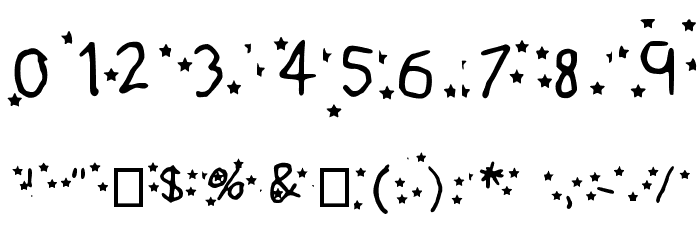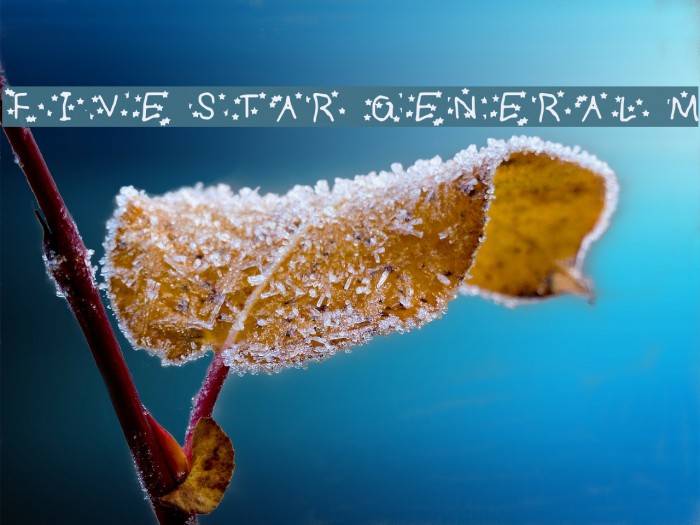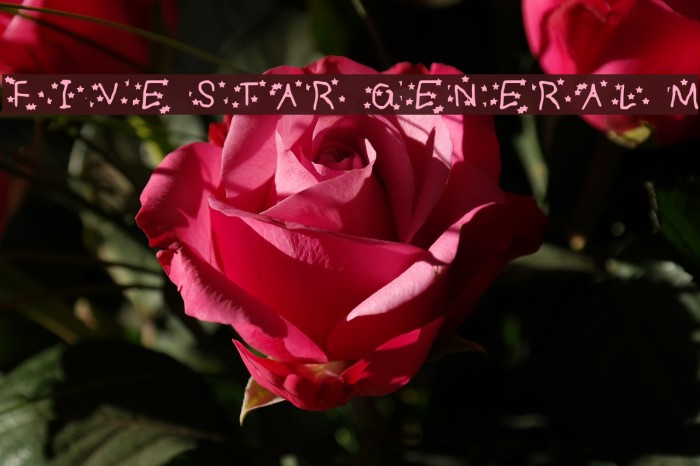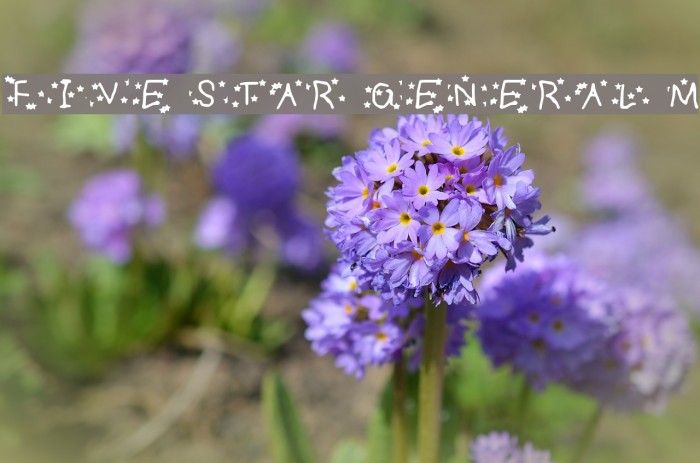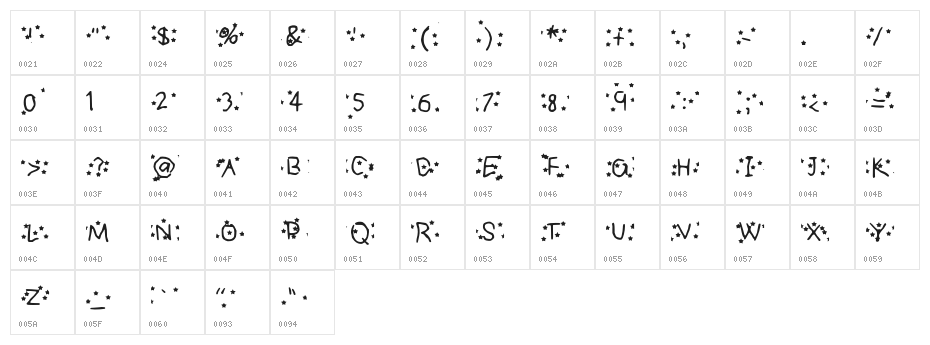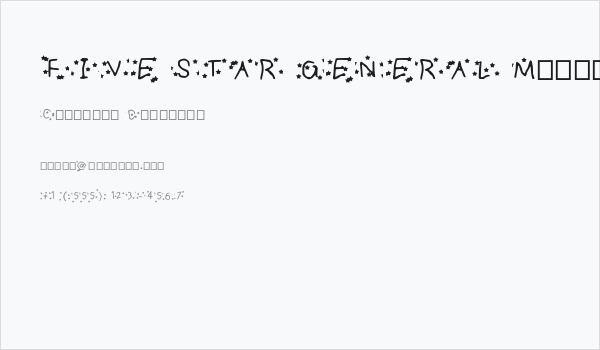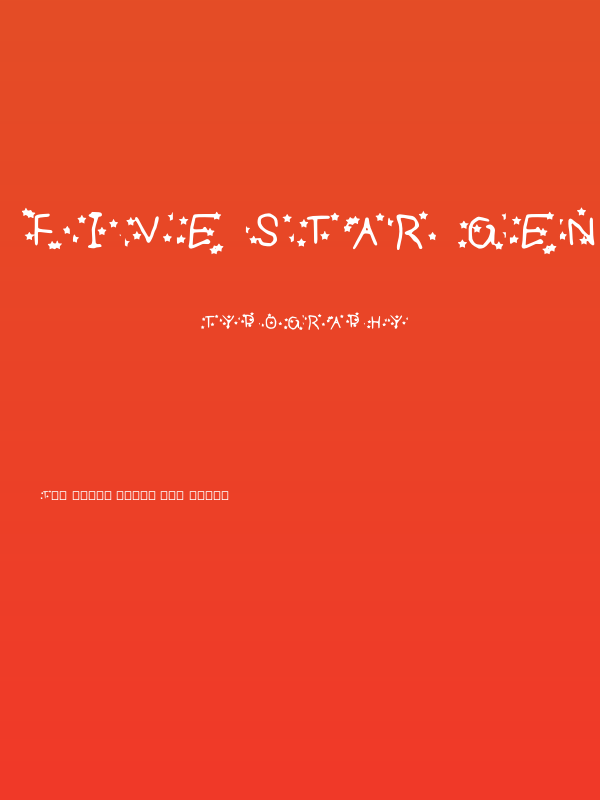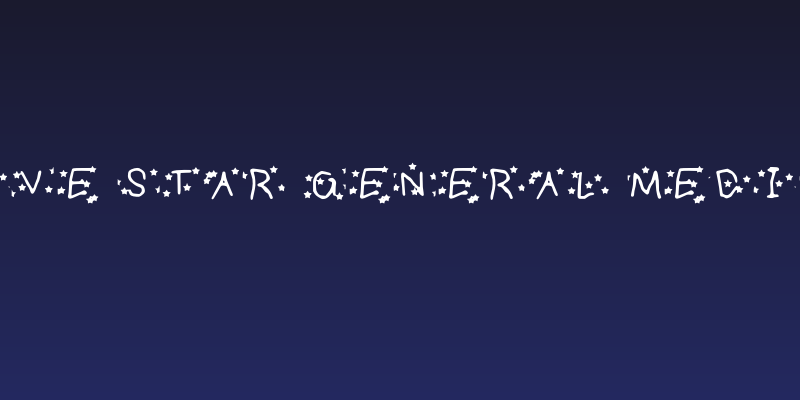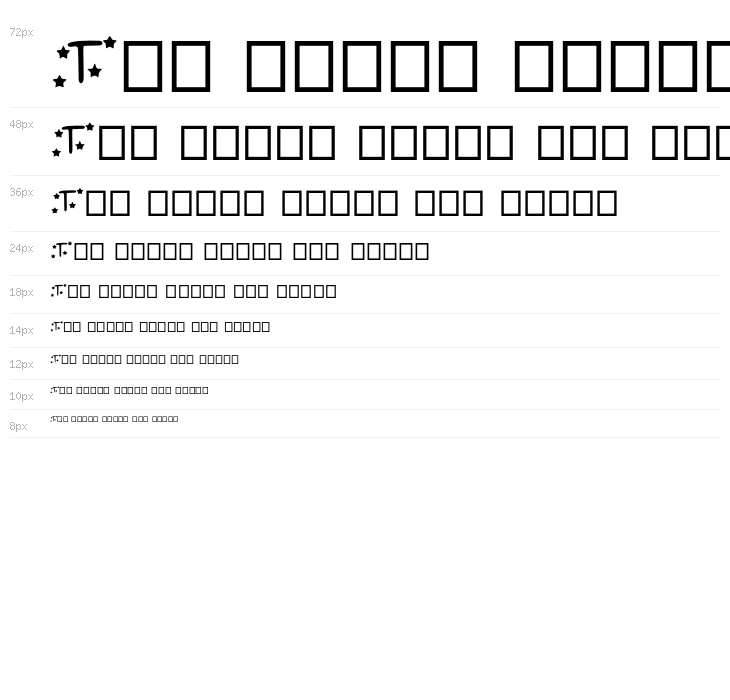
FIVE STAR GENERAL Medium Font
This decorative font features a playful and whimsical design, with each character adorned with star motifs. The uppercase letters are bold and eye-catching, making them ideal for attention-grabbing headlines or creative projects. The numbers and special characters maintain the same star-studded theme, adding a cohesive and fun element to the overall style. The font's unique design makes it suitable for projects that require a touch of creativity and flair, such as children's books, party invitations, or festive event posters.
A whimsical, star-adorned decorative font perfect for creative projects.
- Proposed Projects: Ideal for children's books, party invitations, festive event posters, and creative branding.
- Use Case: Headlines, Logos, Creative projects